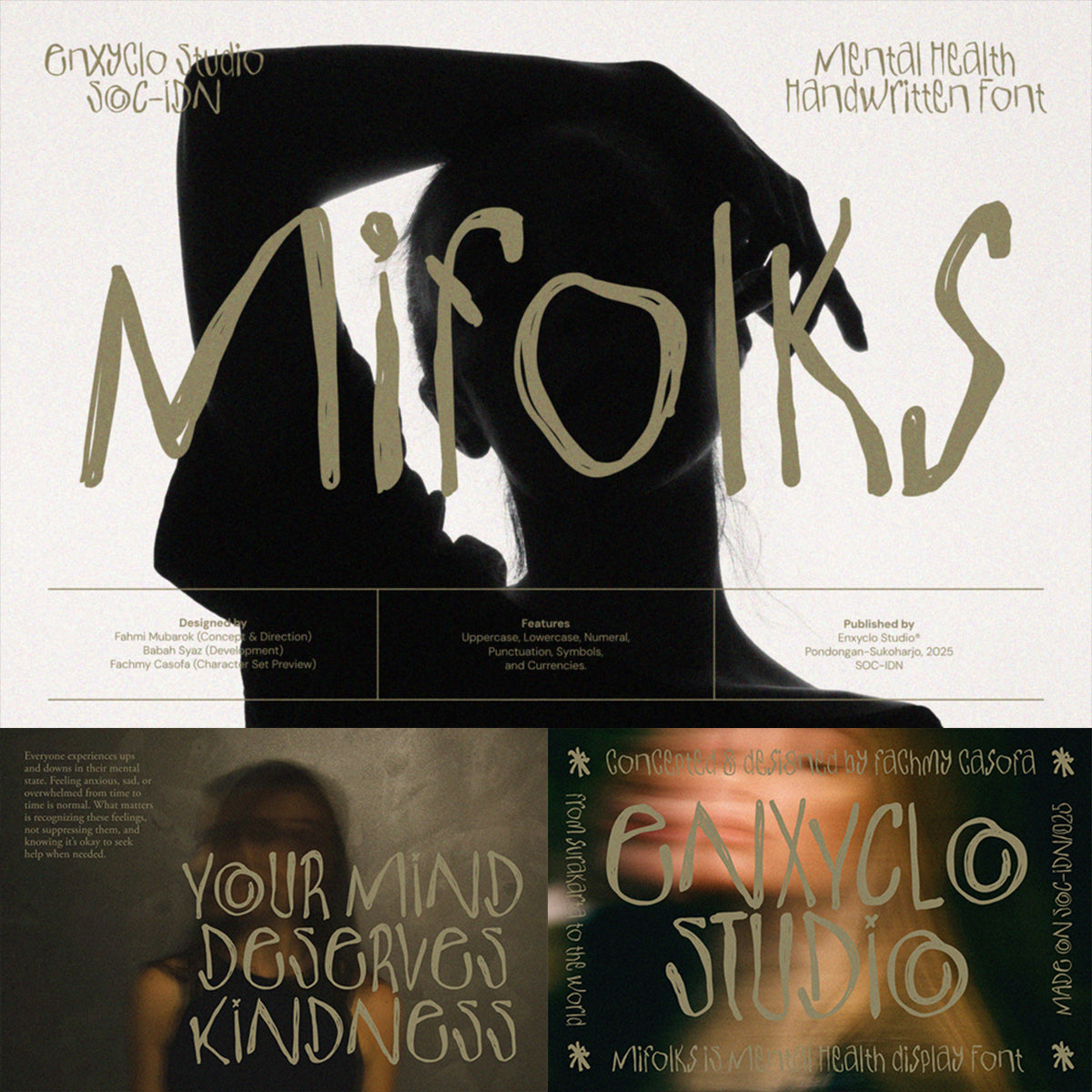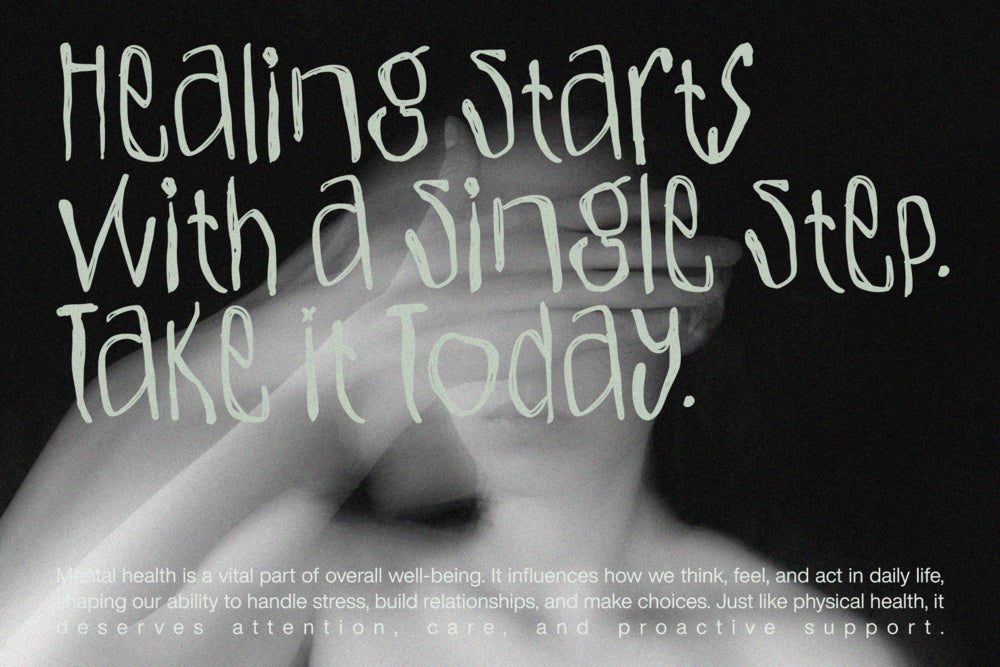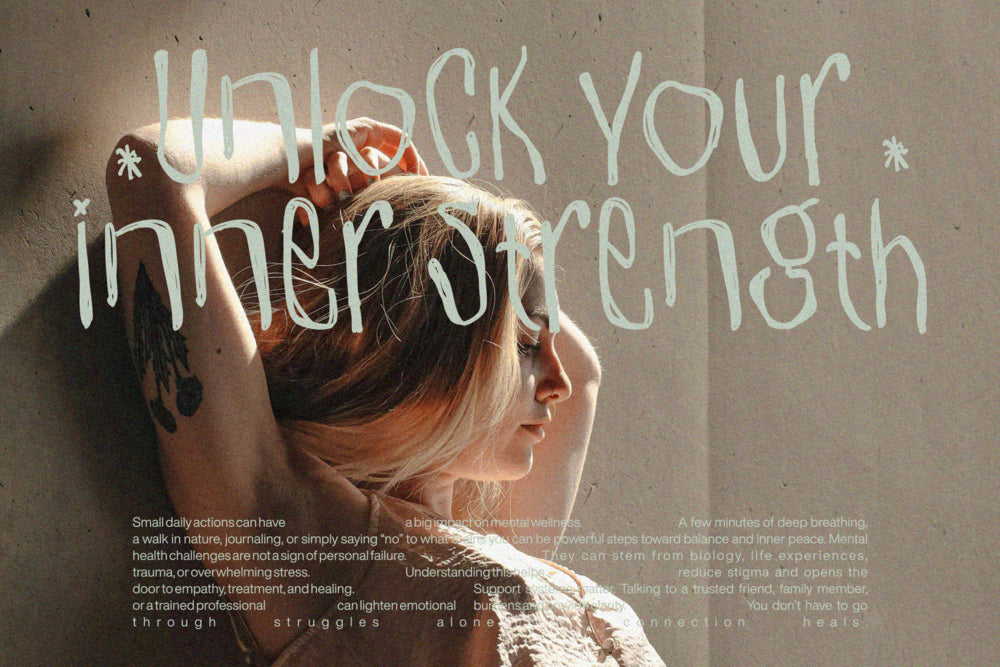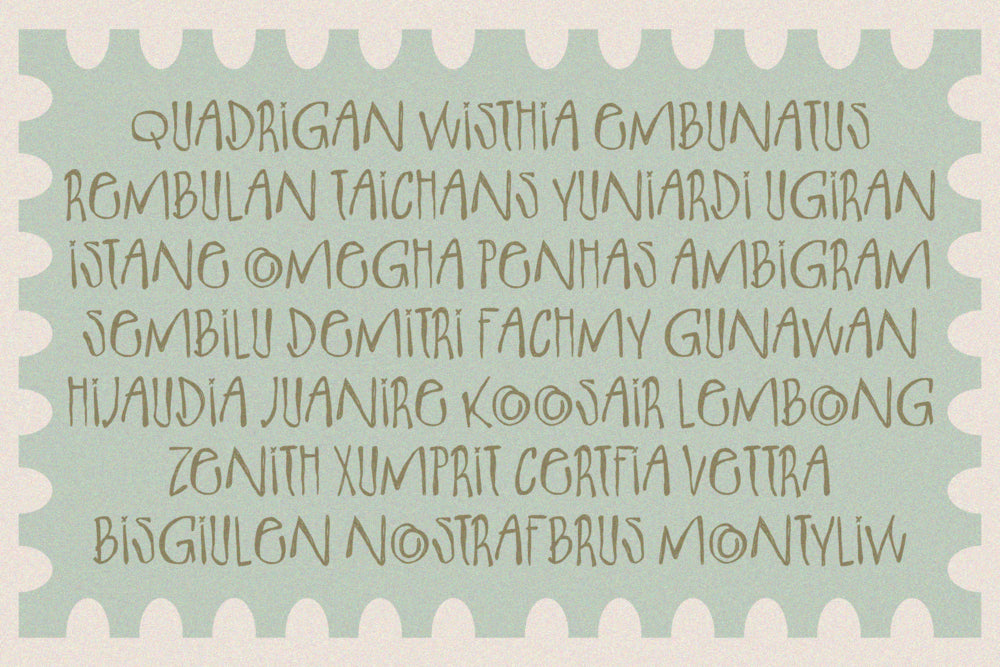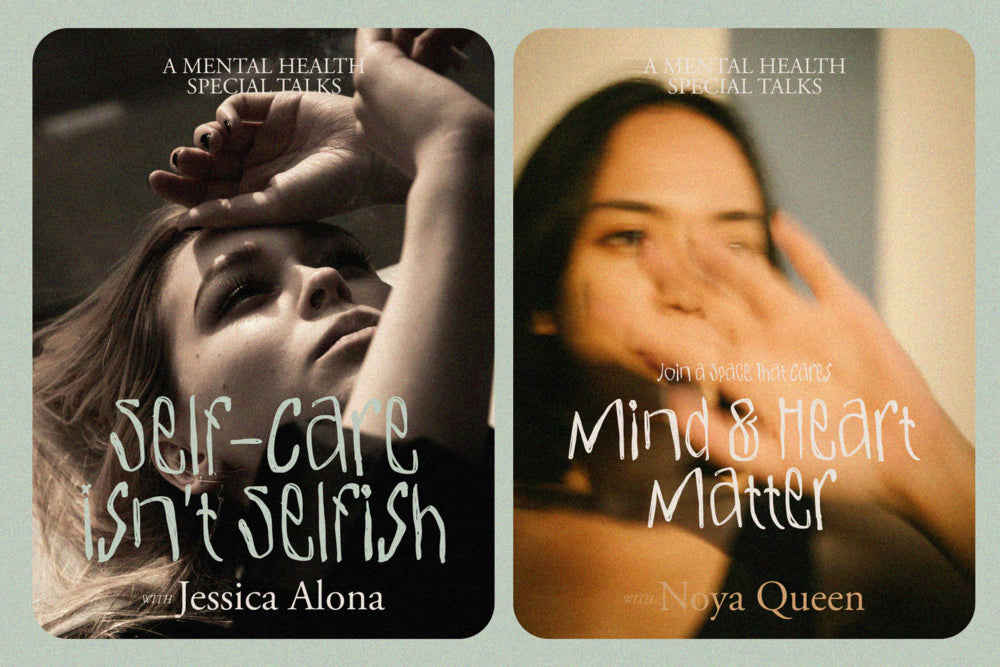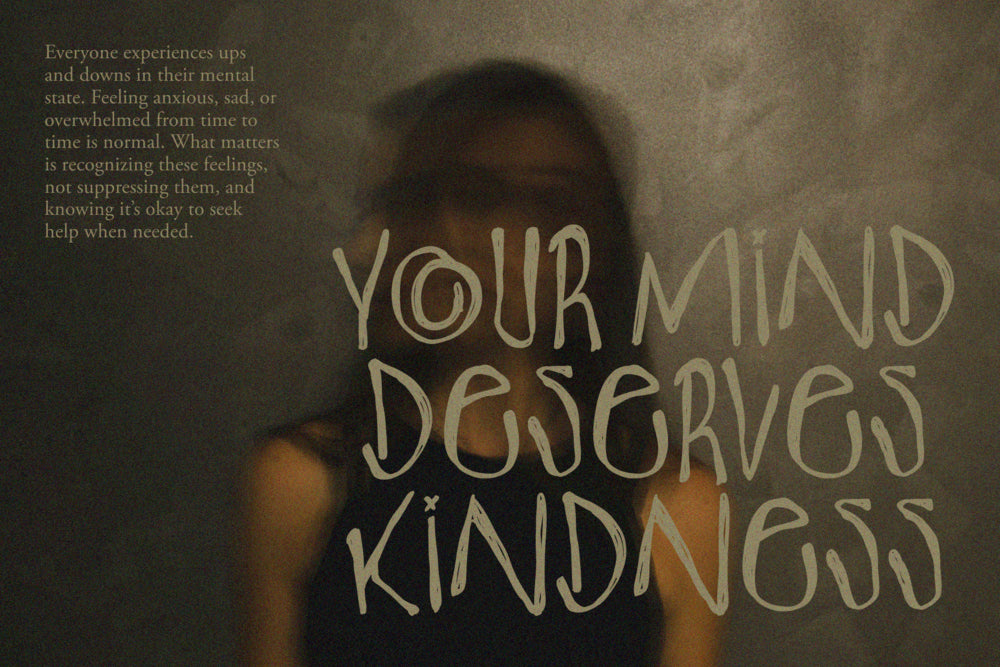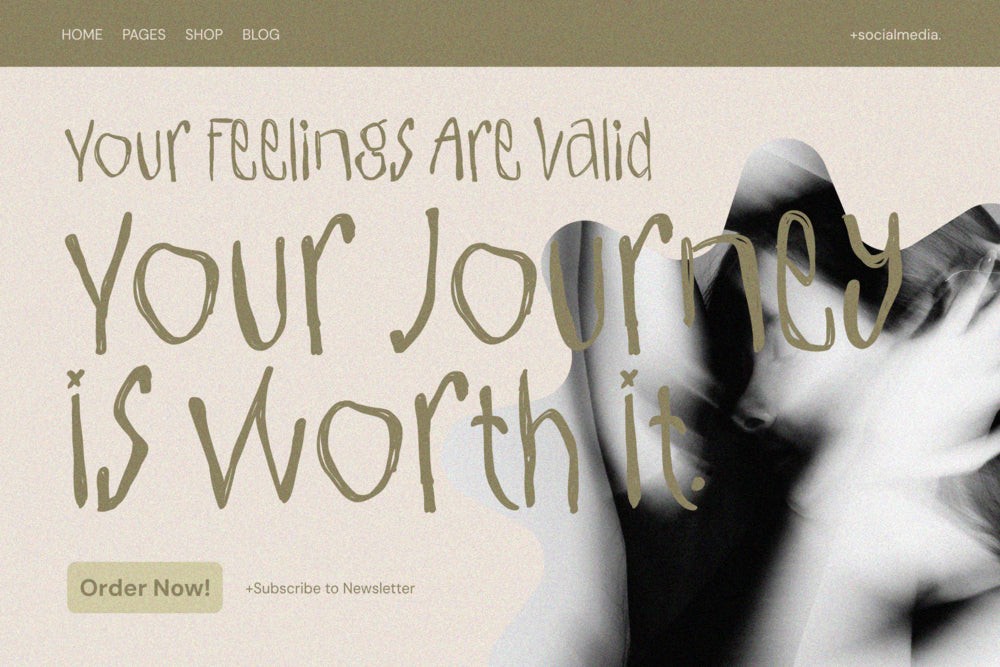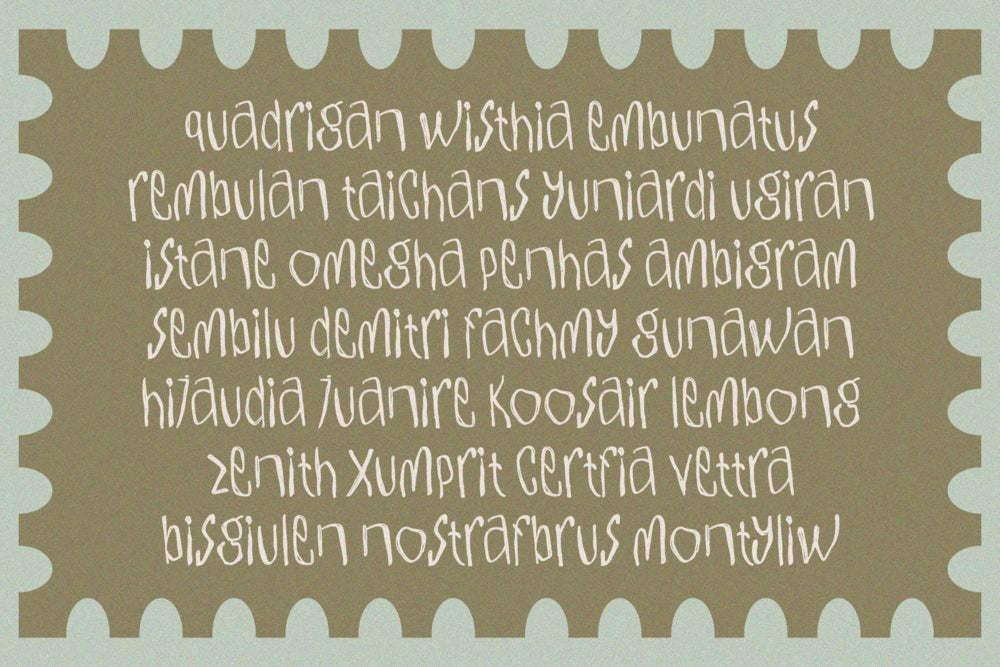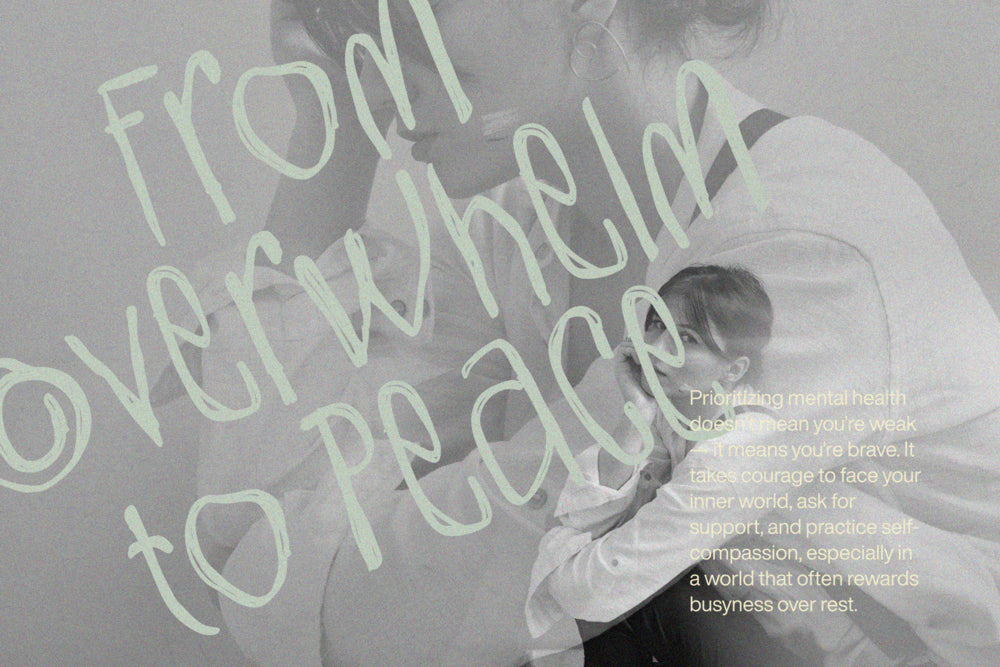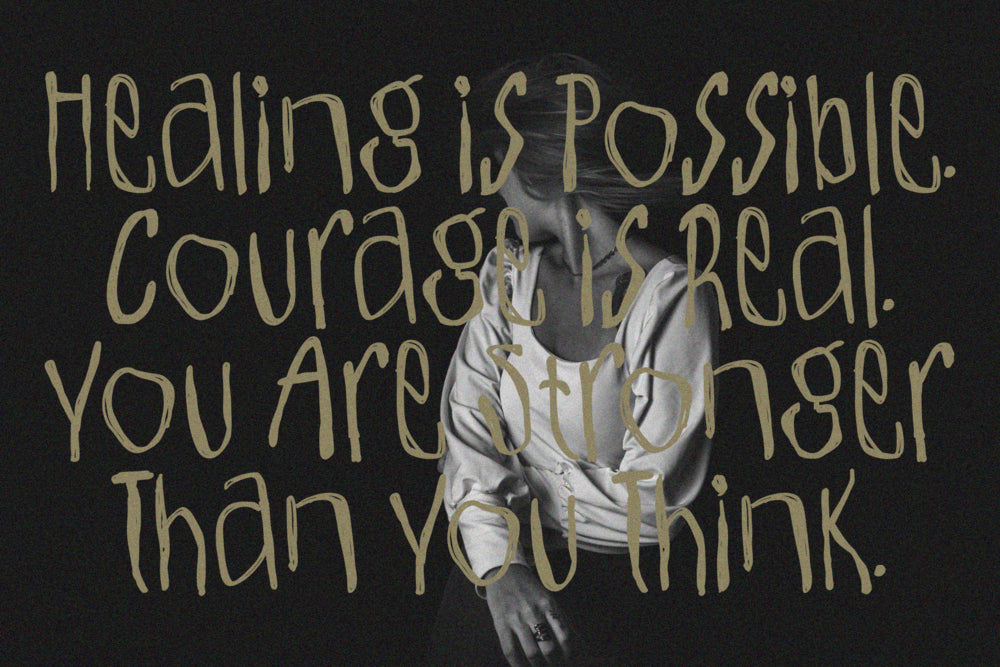
MIFOLKS — Raw Authentic Font
MIFOLKS is a handwritten font featuring a rough, organic texture designed to express emotions related to mental health, mindfulness, and spiritual growth. It includes uppercase and lowercase letters, punctuation marks, symbols, and currency symbols, available in OTF, TTF, and WOFF formats.